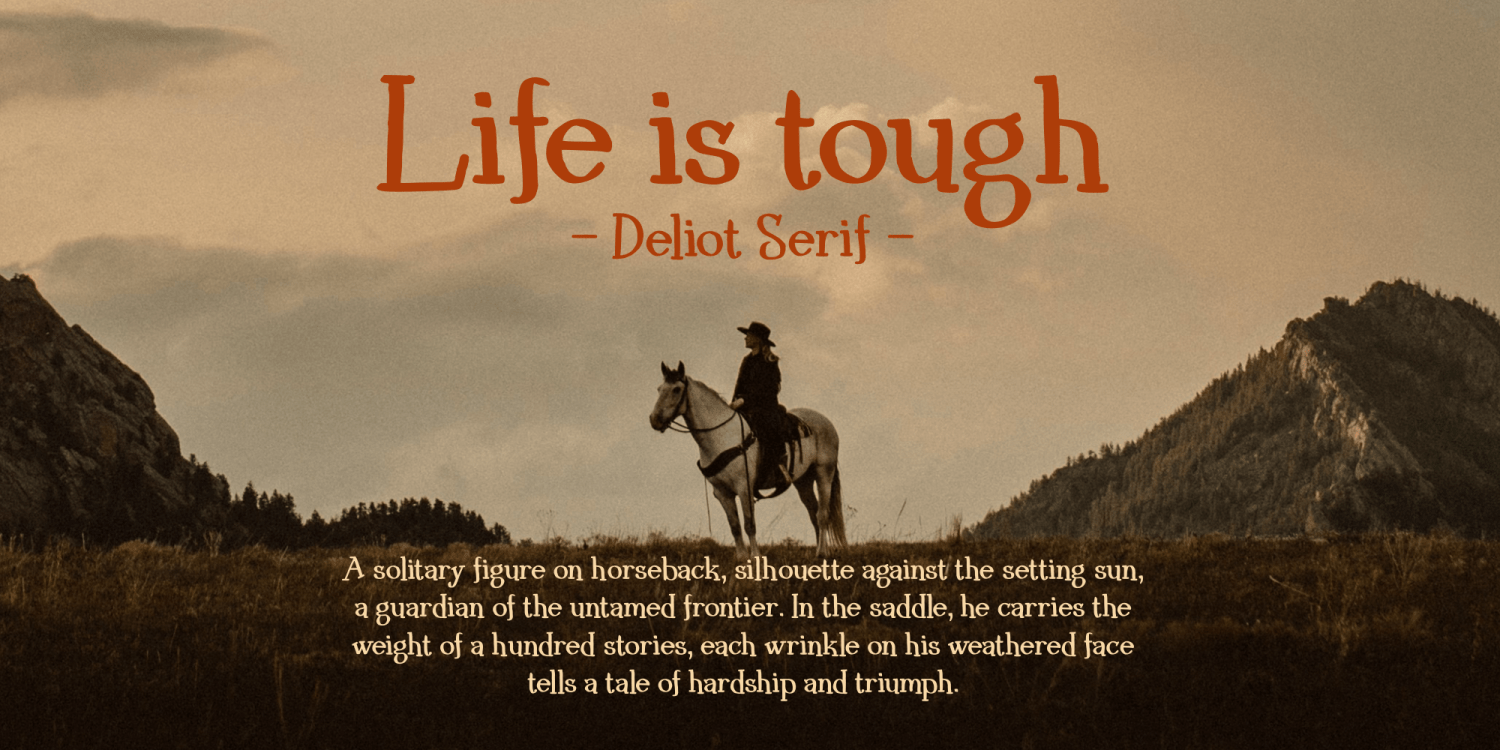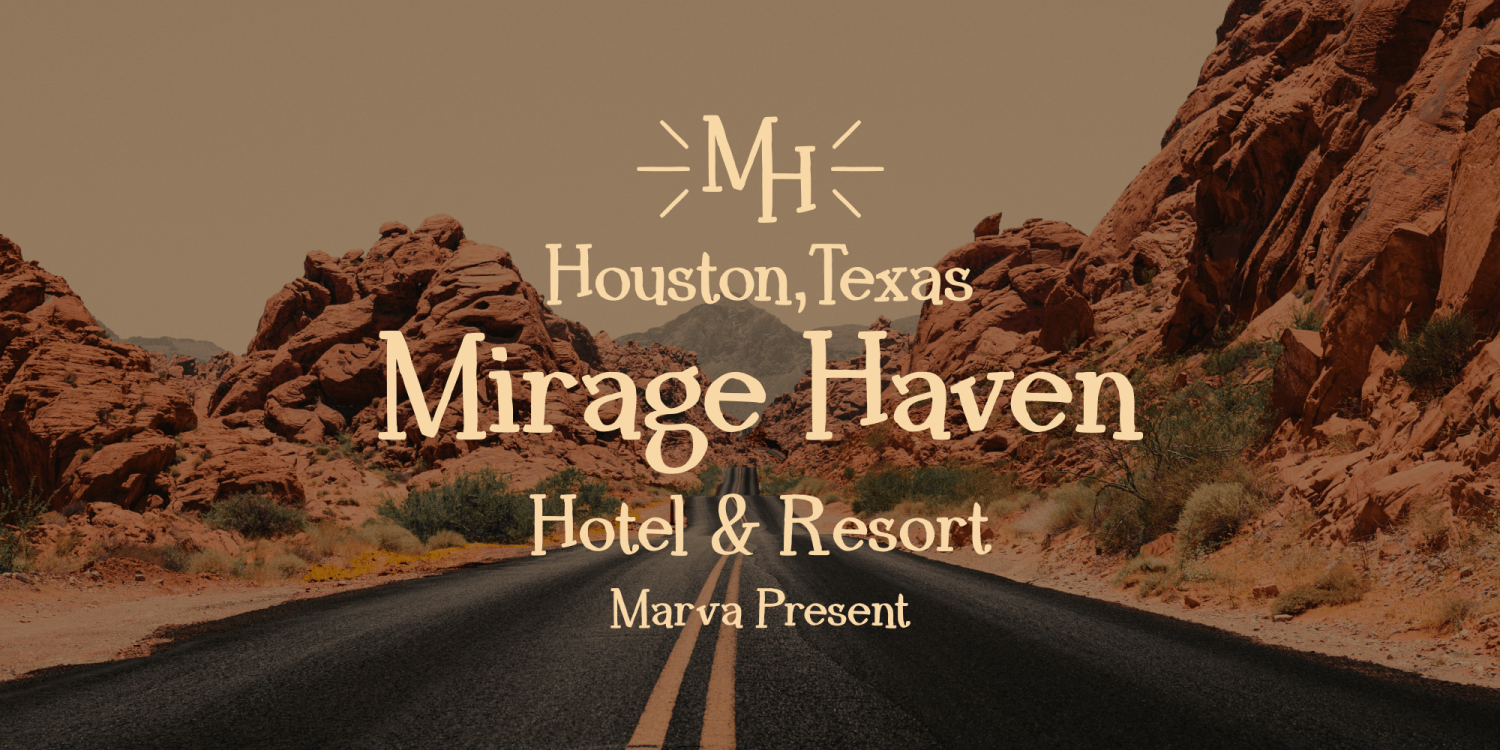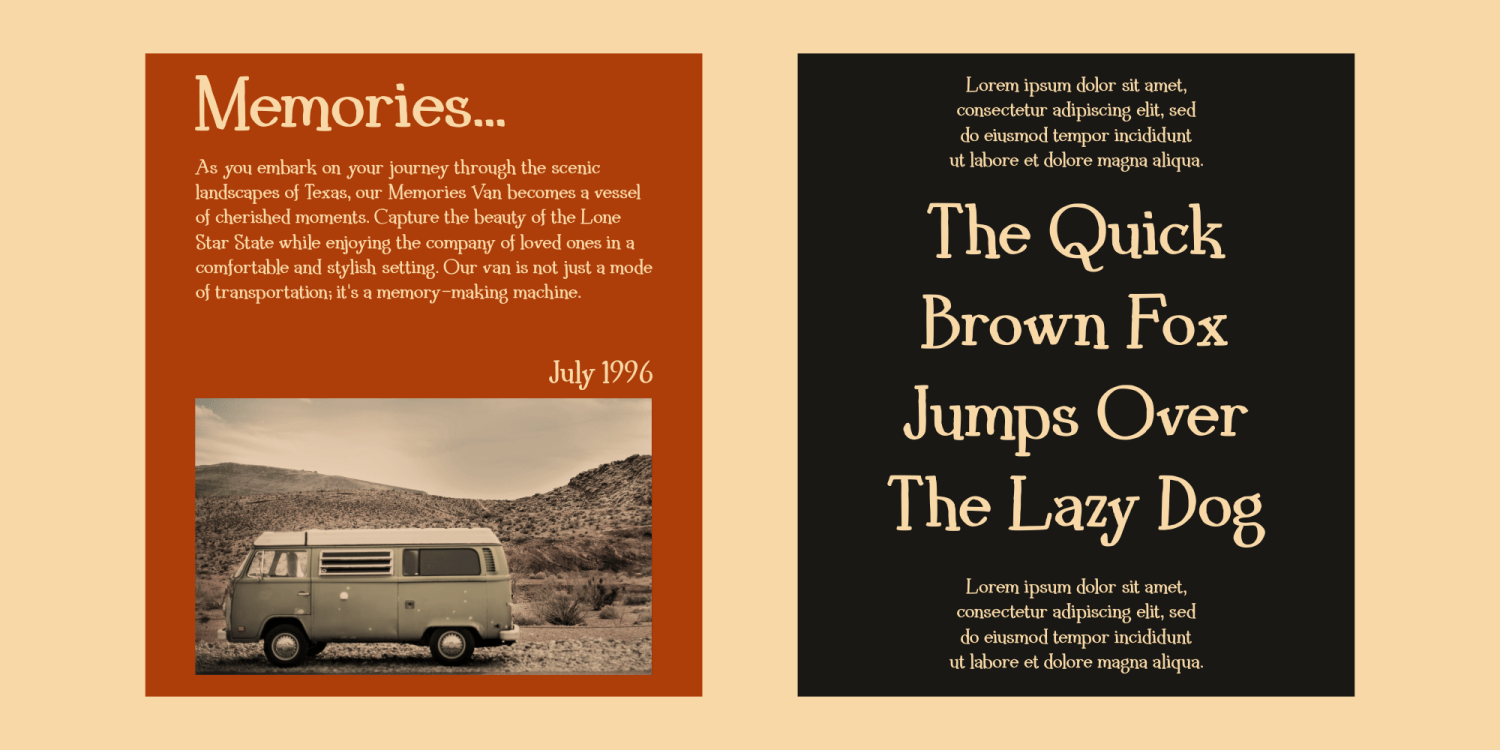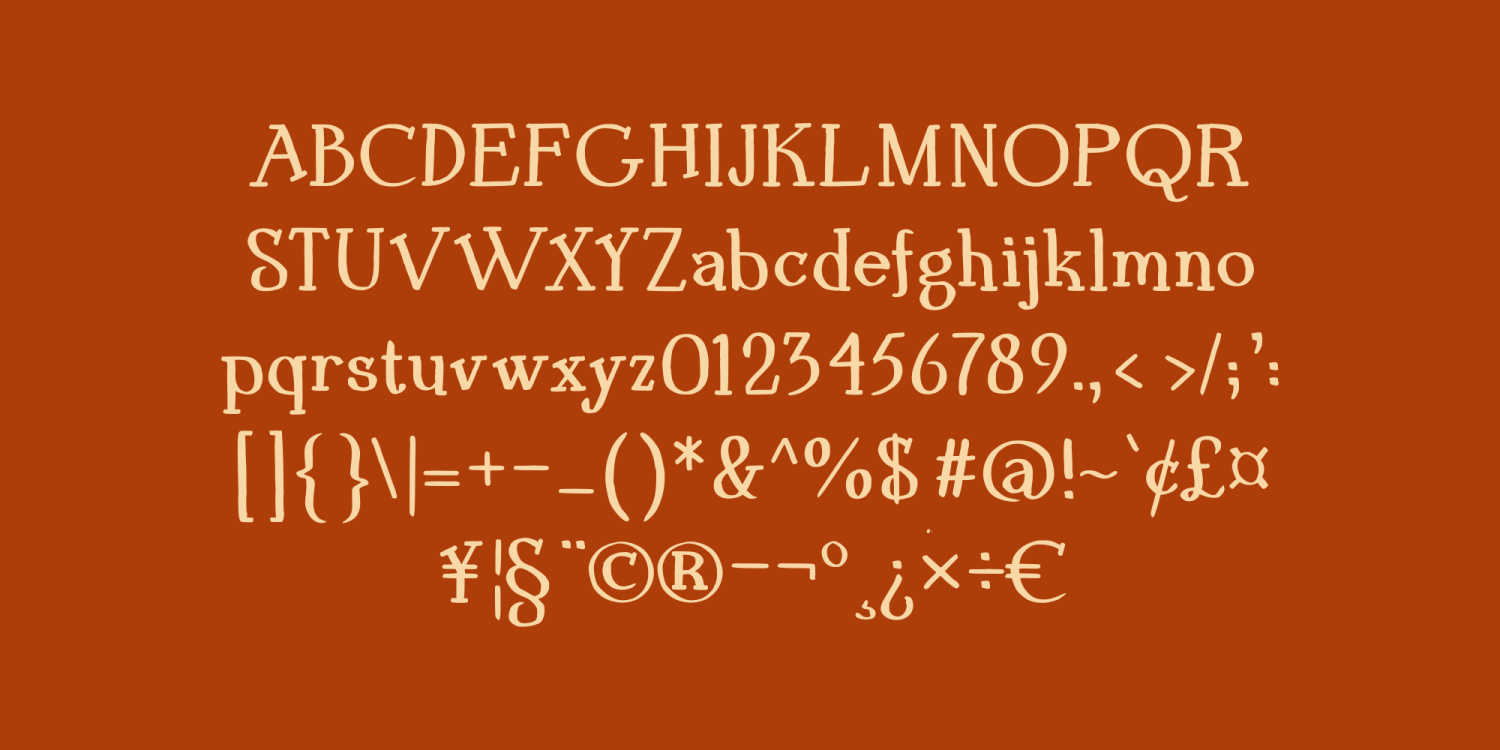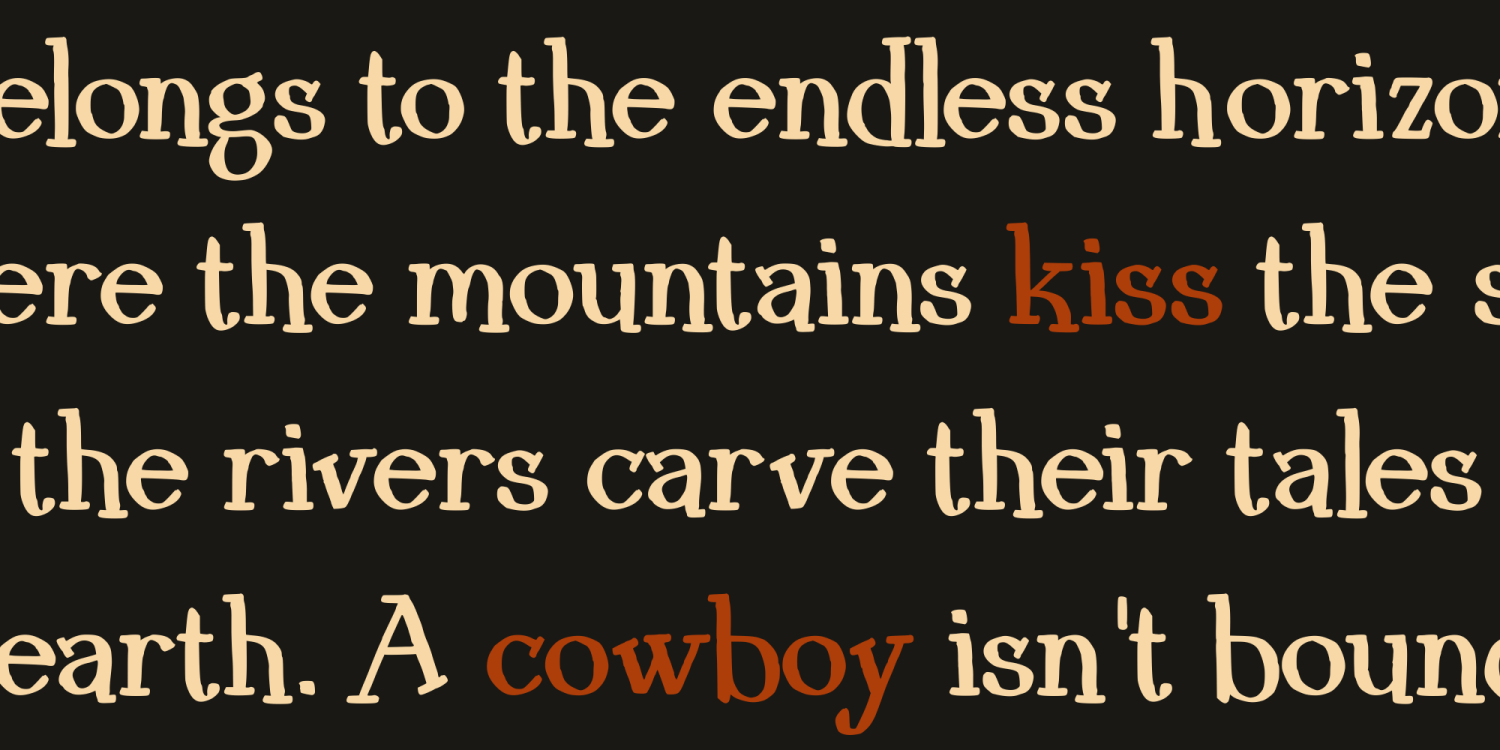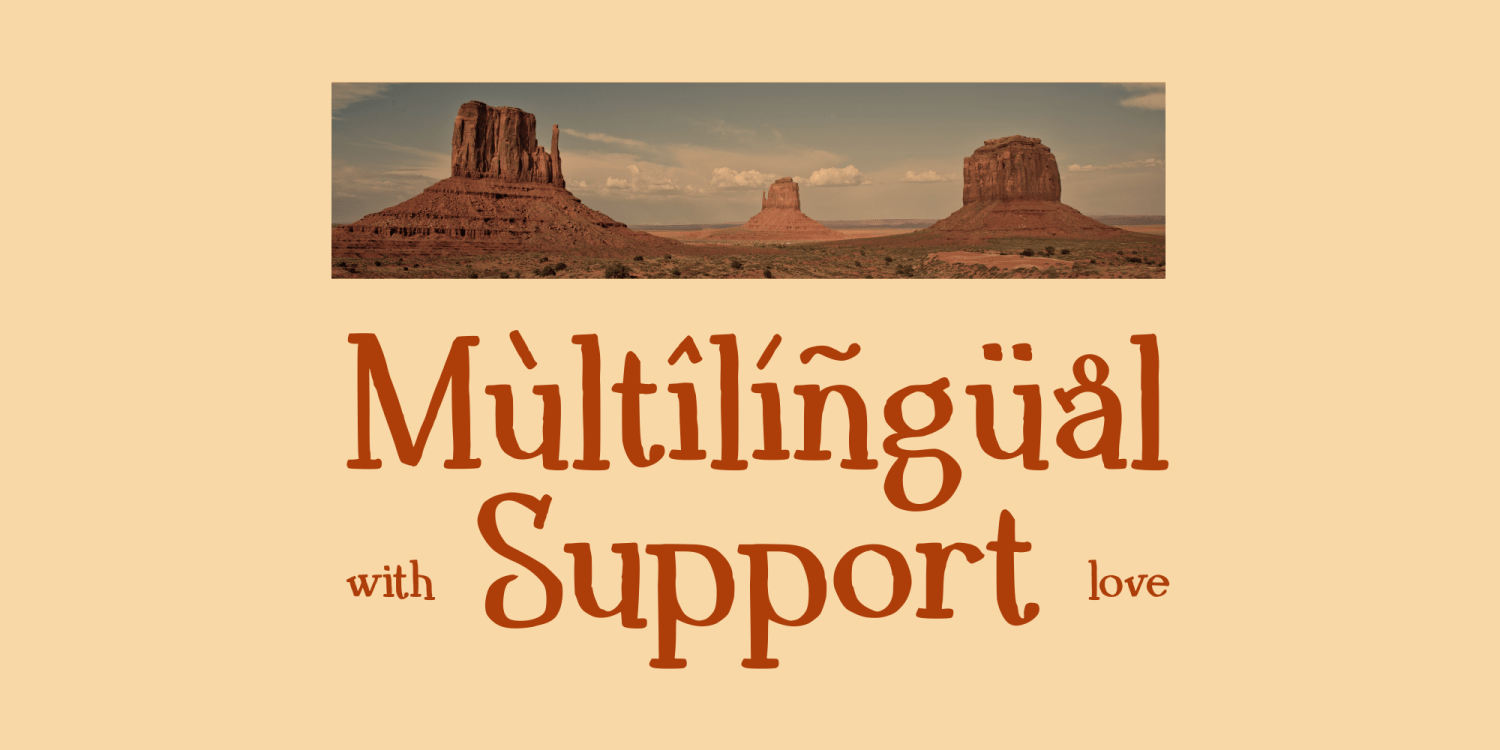
Deliot
Font Family by Marvadesign
Introducing our new product Deliot Font - A Classic Serif Font Font authentic display font. The font is suitable for any branding project like logo, Template Design, Product and many more. outstanding in a wide range of contexts.